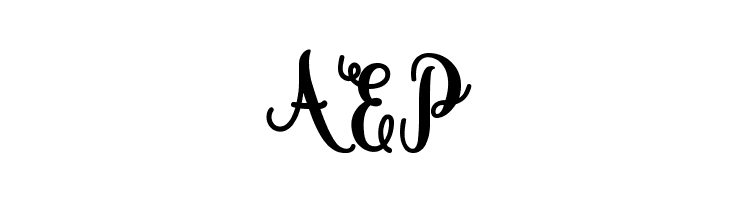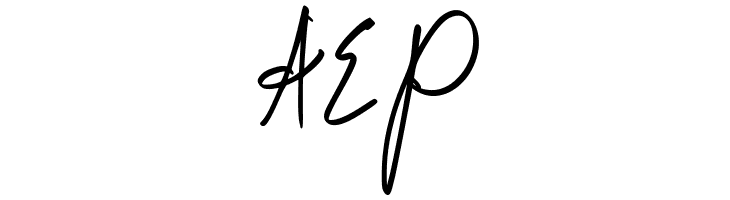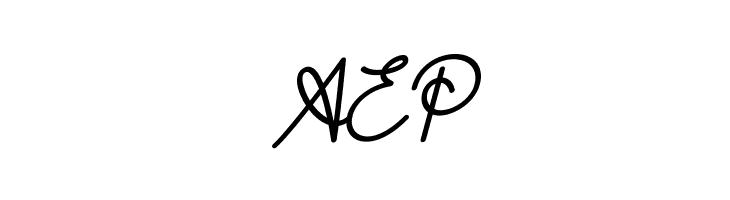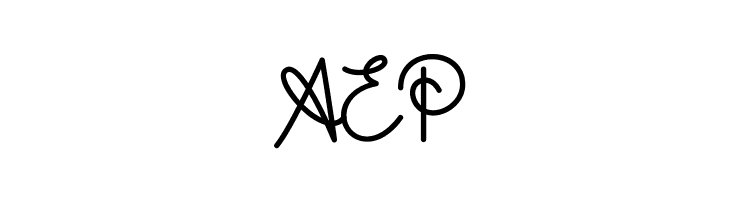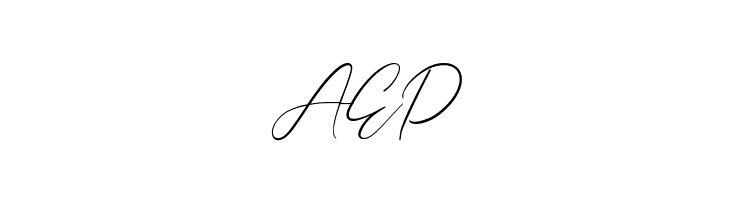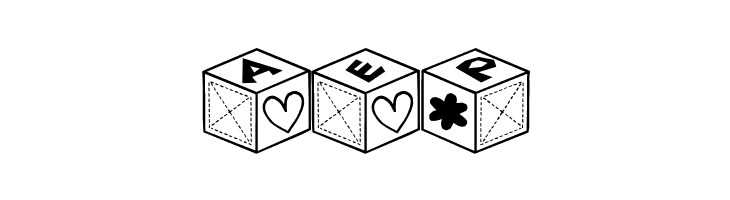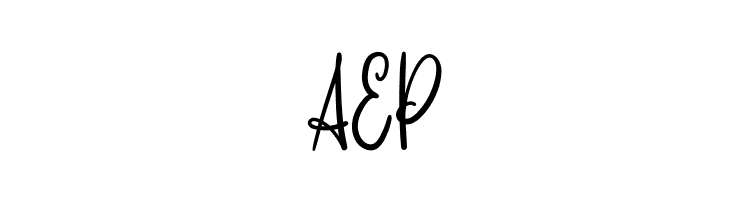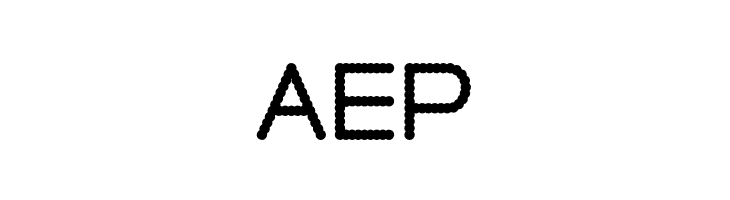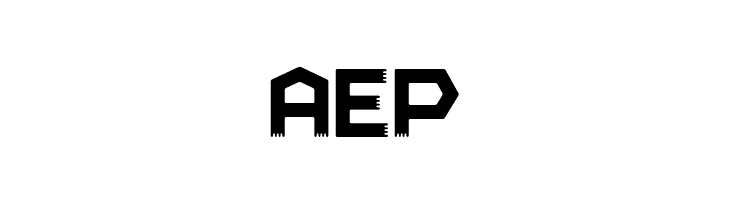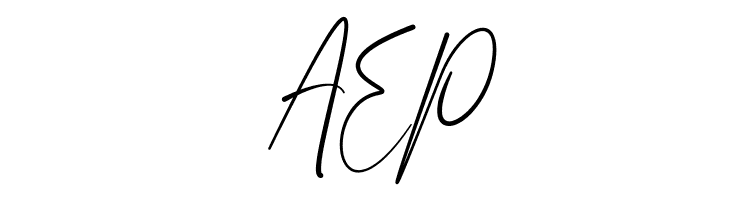
Expressive, tall handwritten script with thin, dynamic strokes.
A bold, angular font with sharp, jagged edges and a dynamic, energetic style.
An artistic and calligraphic font with flowing curves and dynamic strokes.
A bold and artistic script font with dynamic strokes.
Elegant italic font with calligraphic influence and smooth curves.
A playful, bold script font with a lively, handwritten style.
A lively, handwritten script font with flowing, connected letters.
A playful, hand-drawn script font with bold, fluid strokes.
A lively, flowing script font with elegant cursive letters and artistic flair.
A classic serif font with elegant curves and moderate contrast.
A bold serif font with strong, classic letterforms and pronounced serifs.
A playful, handwritten font with lively, interconnected strokes and a whimsical style.
A playful, handwritten script font with an italic style.
A playful and elegant script font with a handwritten style.
A flowing, cursive script font with elegant, connected strokes.
A playful, dotted font with a cohesive and decorative style.
A dynamic, angular font with a calligraphic influence and high contrast strokes.
A bold, geometric font with a digital glitch effect, perfect for modern and edgy designs.
An elegant script font with ornate uppercase and bold lowercase letters.
A bold, flowing script font with a playful and energetic style.
An elegant script font with flowing cursive style and decorative flourishes.
A playful and whimsical script font with decorative swirls and loops.
A whimsical, hand-drawn font with textured, sketch-like strokes.
A cursive, handwritten font with elegant, flowing strokes.
A playful, handwritten script font with dynamic, looping strokes.
A bold, expressive script font with a handwritten, fluid style.